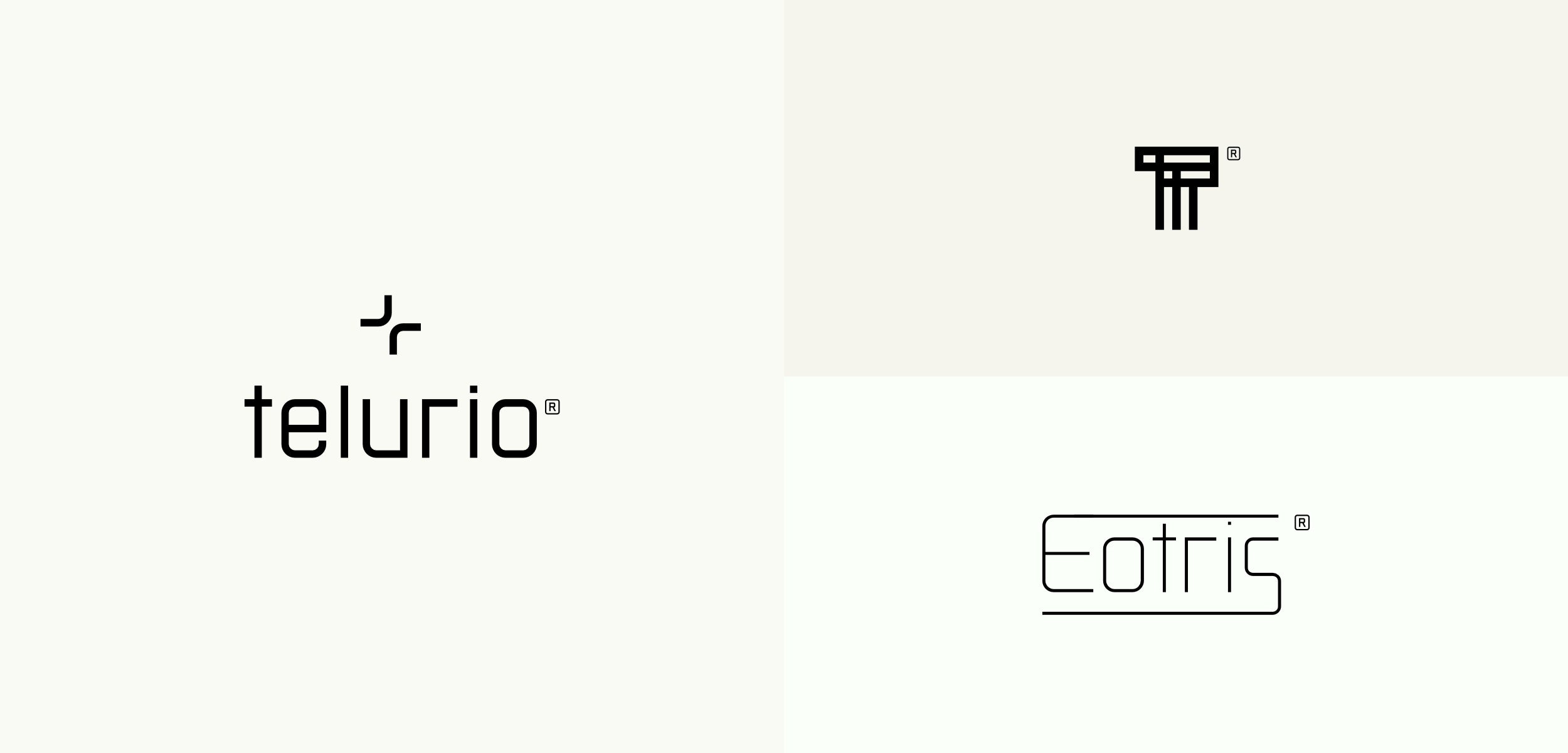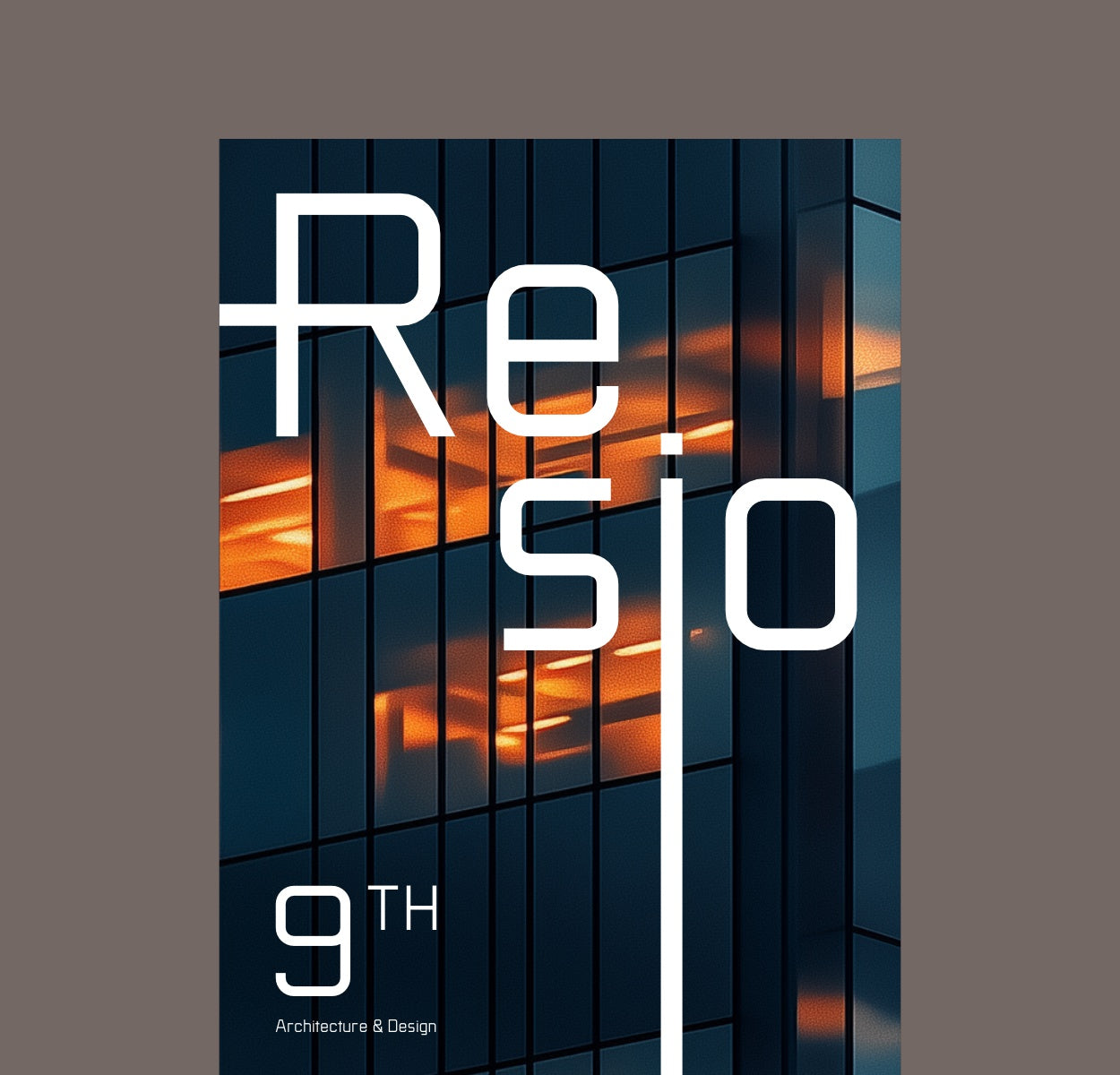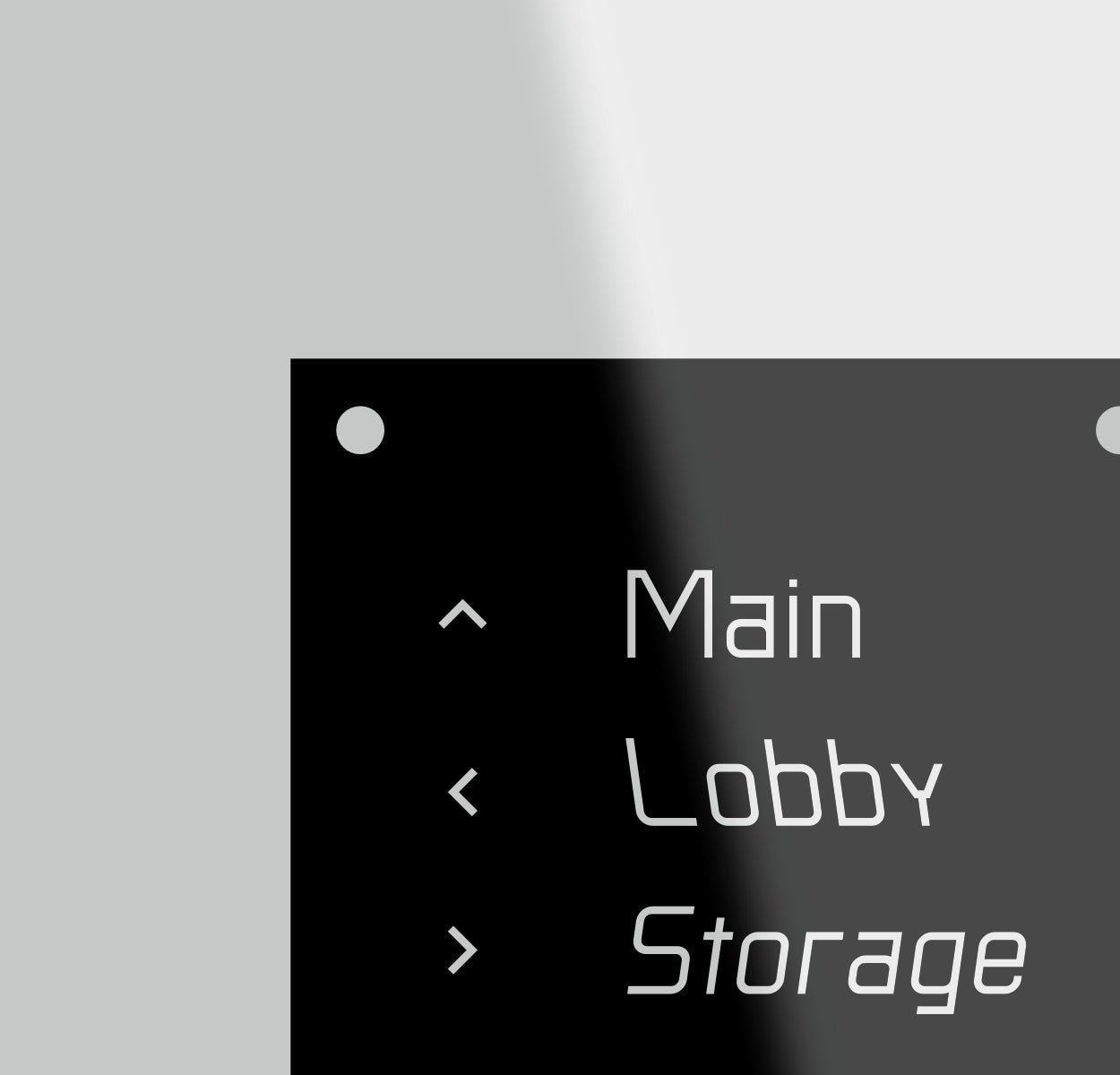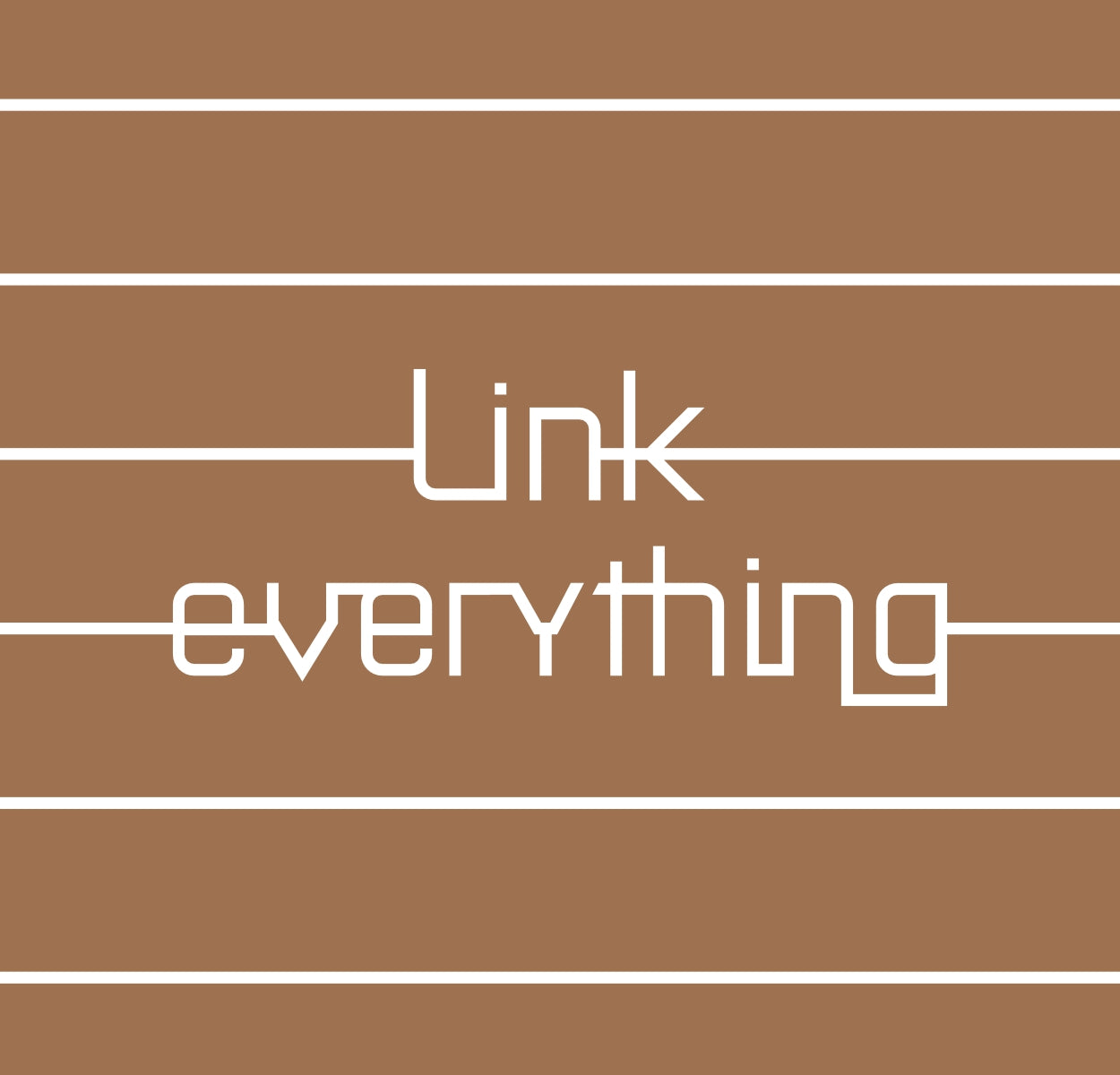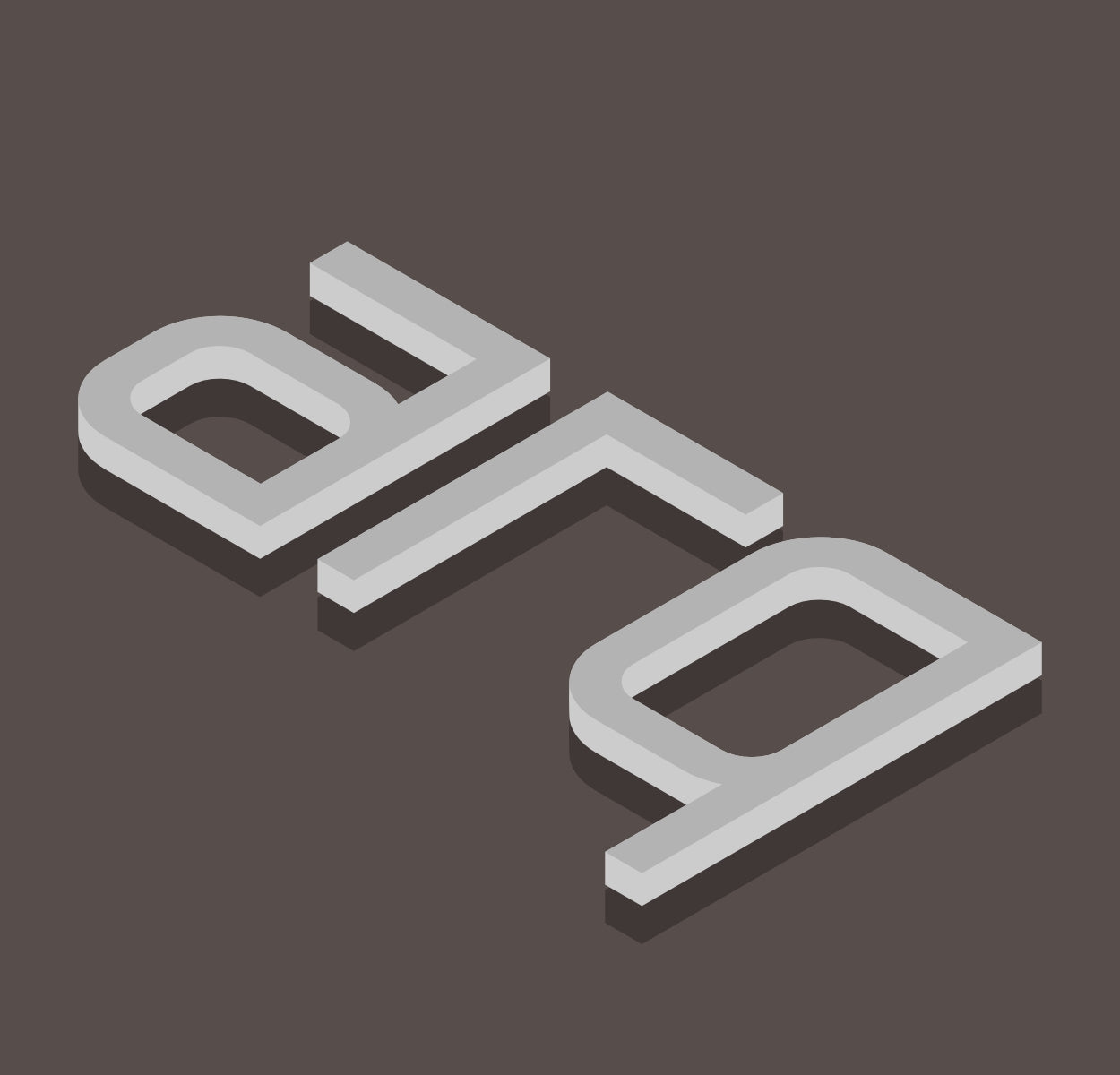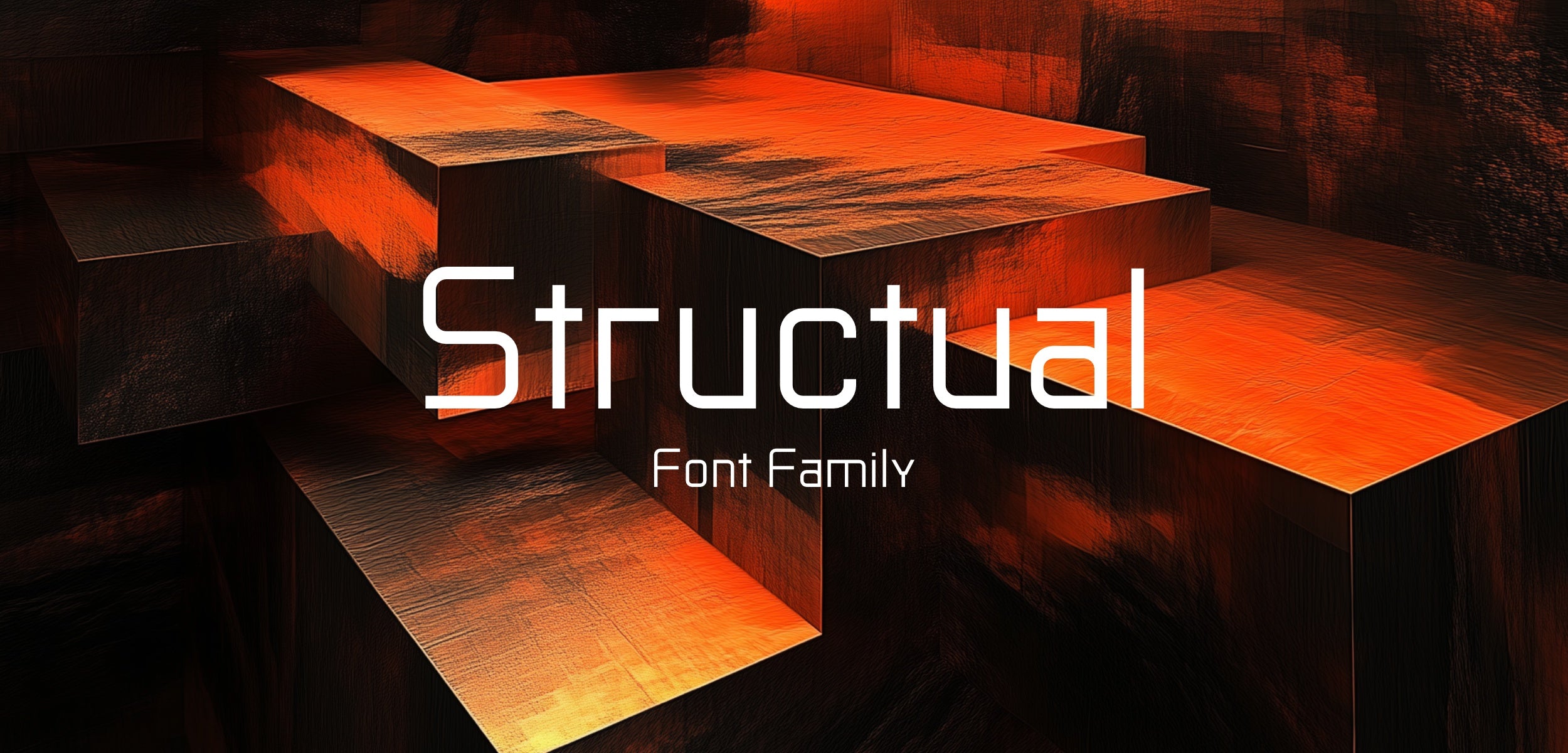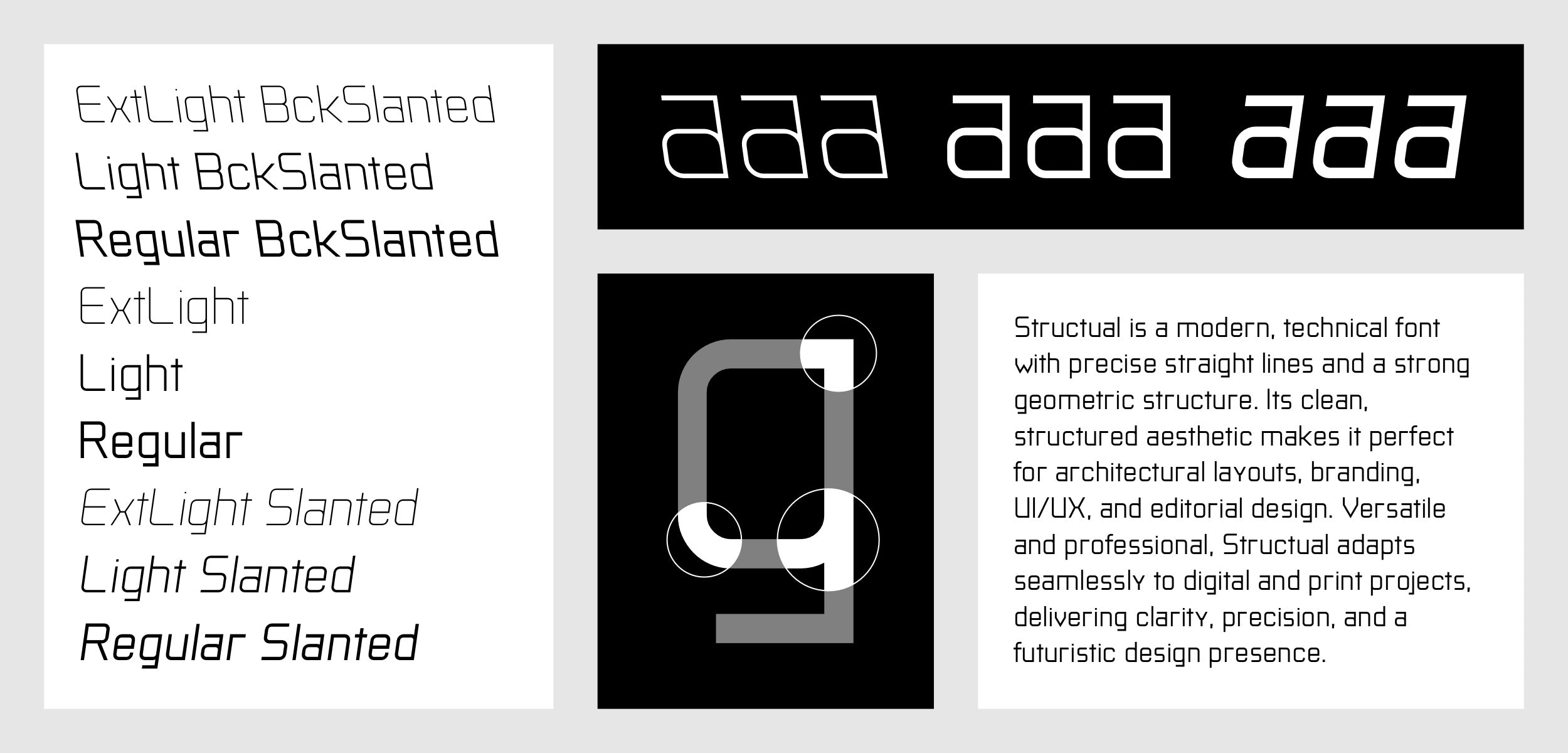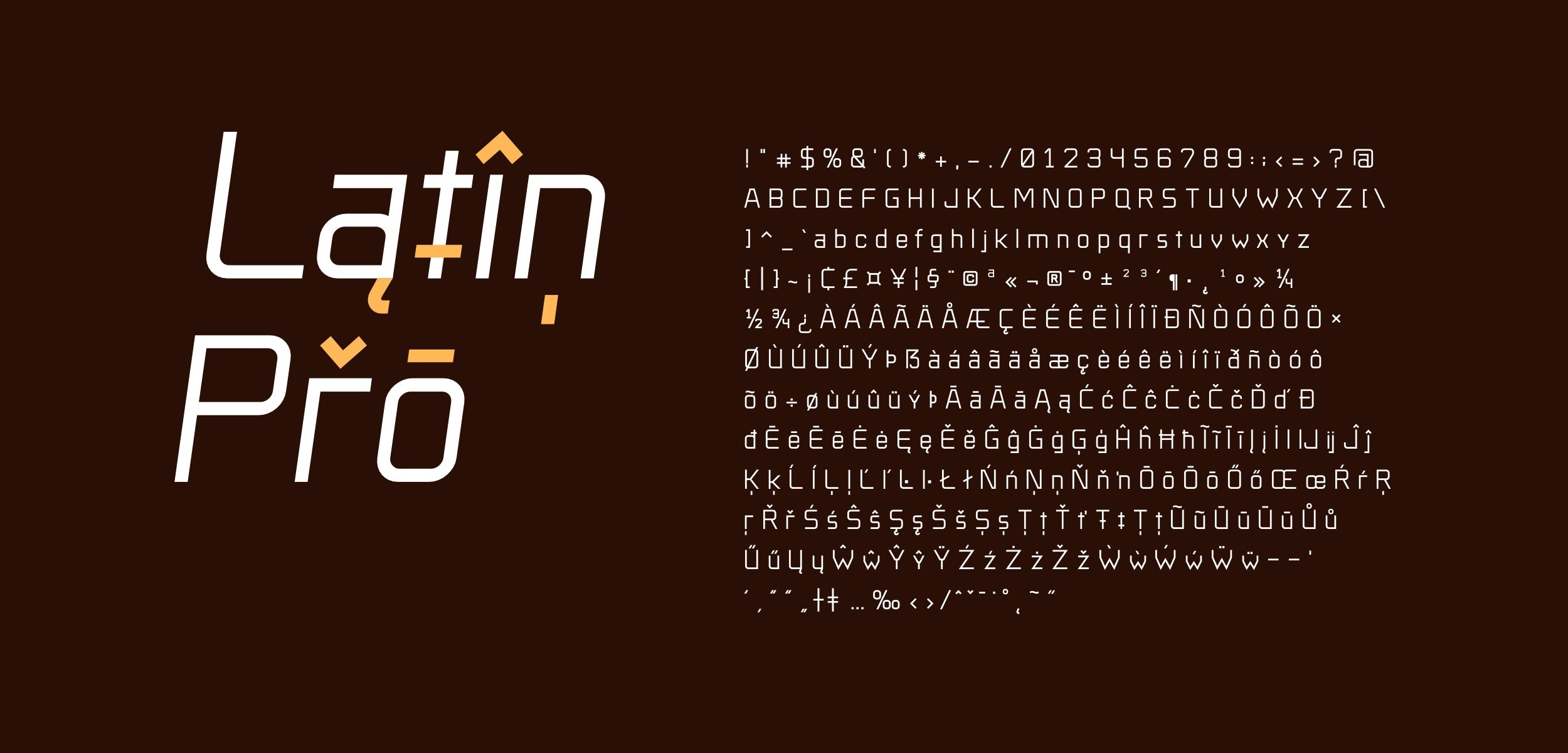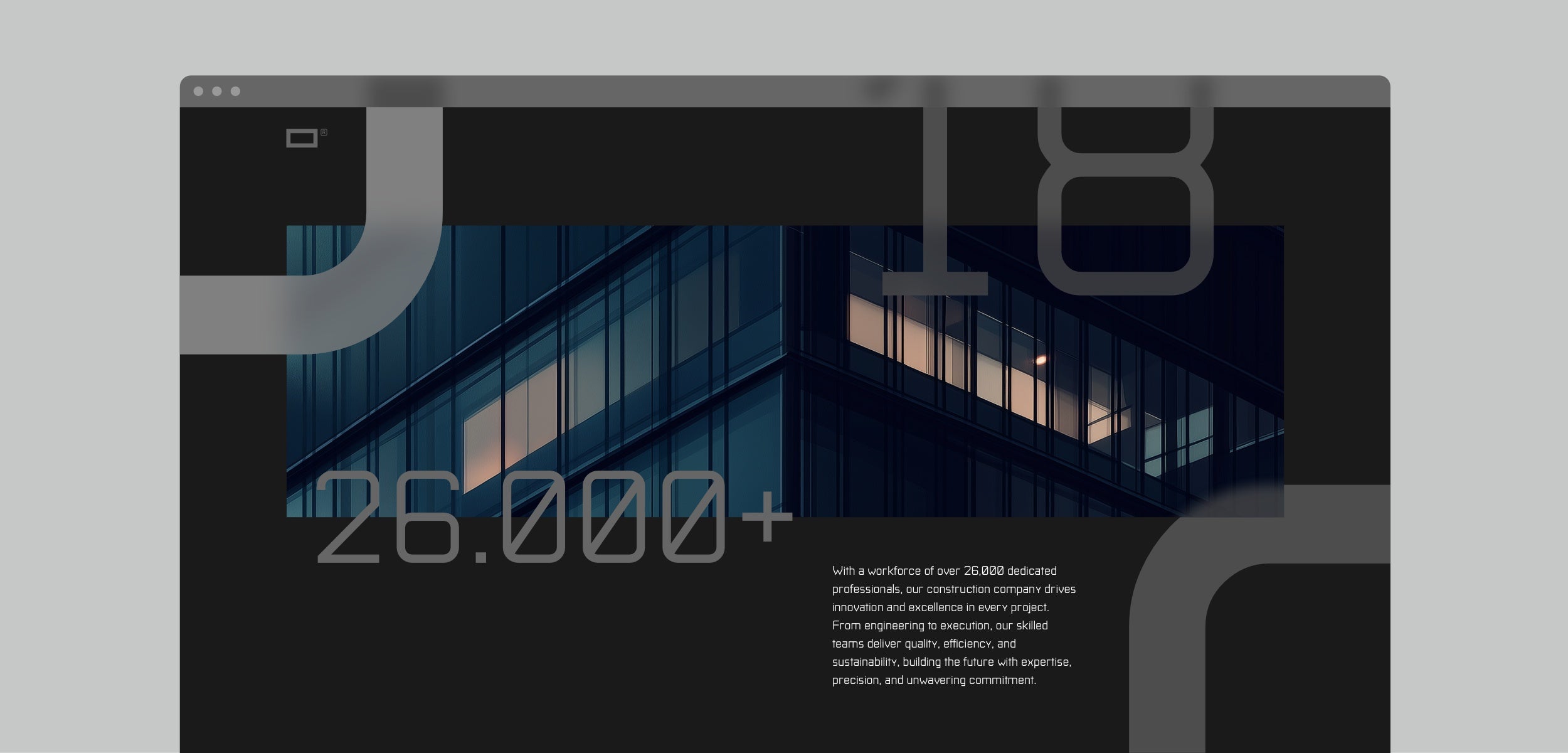
Use the elements of the font to create symbol plus wordmark structures for your brand identity projects.
Create bold wordmark logos using only the font characters.
Create symbols and logomarks using only font elements.
Structual’s geometric structure enhances editorial layouts, branding, and packaging. Its modern, technical aesthetic ensures clarity, making it ideal for magazines, corporate materials, and technical documentation.
Structual’s straight lines and structured forms create impactful signage, wayfinding, and spatial graphics. Its geometry integrates seamlessly into modern architecture and industrial interior designs.
Structual’s modular elements form intricate grids, structural layouts, and abstract patterns, making it ideal for experimental typography, branding, and dynamic design compositions.
Structual’s sharp, structured forms adapt perfectly to 3D typography, engraved lettering, and digital modeling. Its technical feel enhances futuristic UI, motion graphics, and product design.
Structual’s geometric structure enhances editorial layouts, branding, and packaging. Its modern, technical aesthetic ensures clarity, making it ideal for magazines, corporate materials, and technical documentation.
Structual’s straight lines and structured forms create impactful signage, wayfinding, and spatial graphics. Its geometry integrates seamlessly into modern architecture and industrial interior designs.
Structual’s modular elements form intricate grids, structural layouts, and abstract patterns, making it ideal for experimental typography, branding, and dynamic design compositions.
Structual’s sharp, structured forms adapt perfectly to 3D typography, engraved lettering, and digital modeling. Its technical feel enhances futuristic UI, motion graphics, and product design.